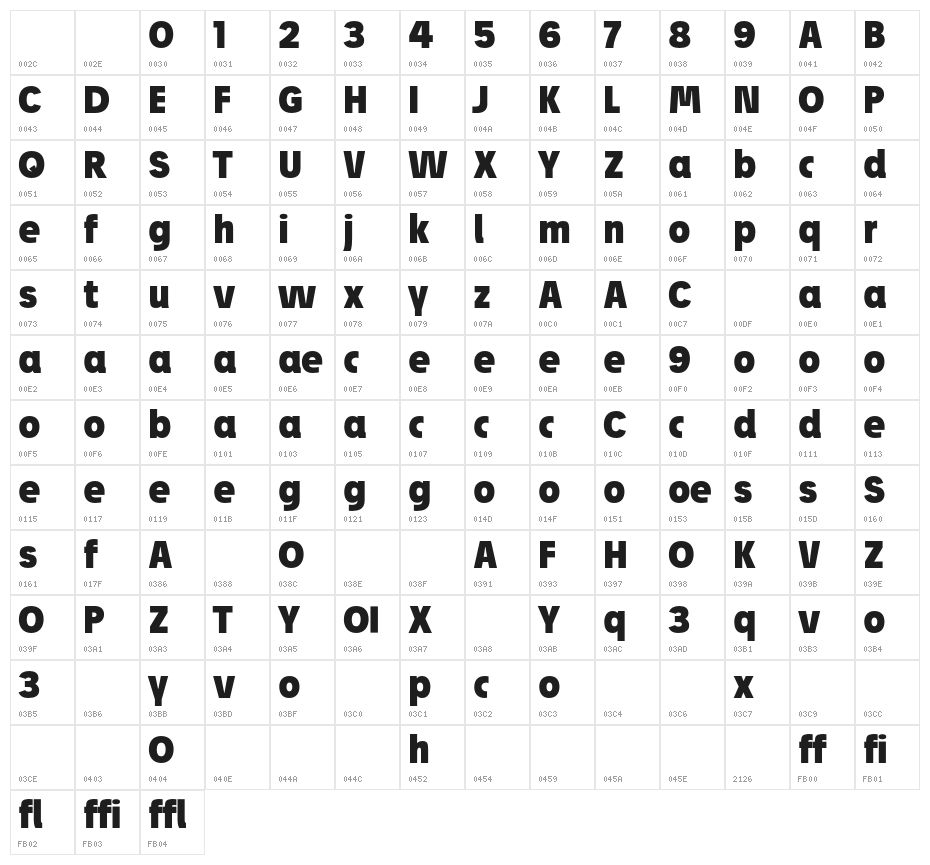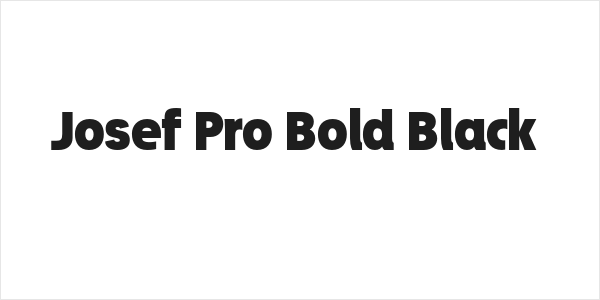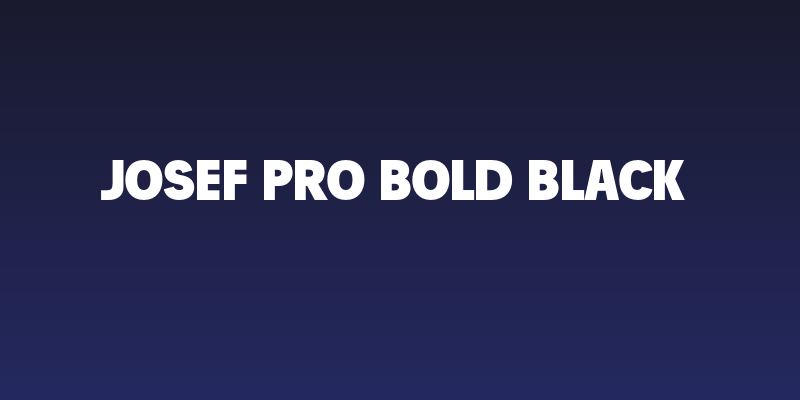
Josef Pro Bold Black Font
Josef Pro Bold Black Description
This font features a bold and robust design, characterized by thick, uniform strokes that create a strong visual impact. The letterforms are geometric and well-defined, with a modern aesthetic that emphasizes clarity and readability. The uppercase and lowercase letters maintain consistent proportions, contributing to a cohesive appearance. The numerals are equally bold, ensuring they stand out prominently. This font is versatile, suitable for various applications where a strong, assertive presence is desired.
Proposed ProjectsIdeal for headlines, posters, branding, and any design requiring a strong visual impact.